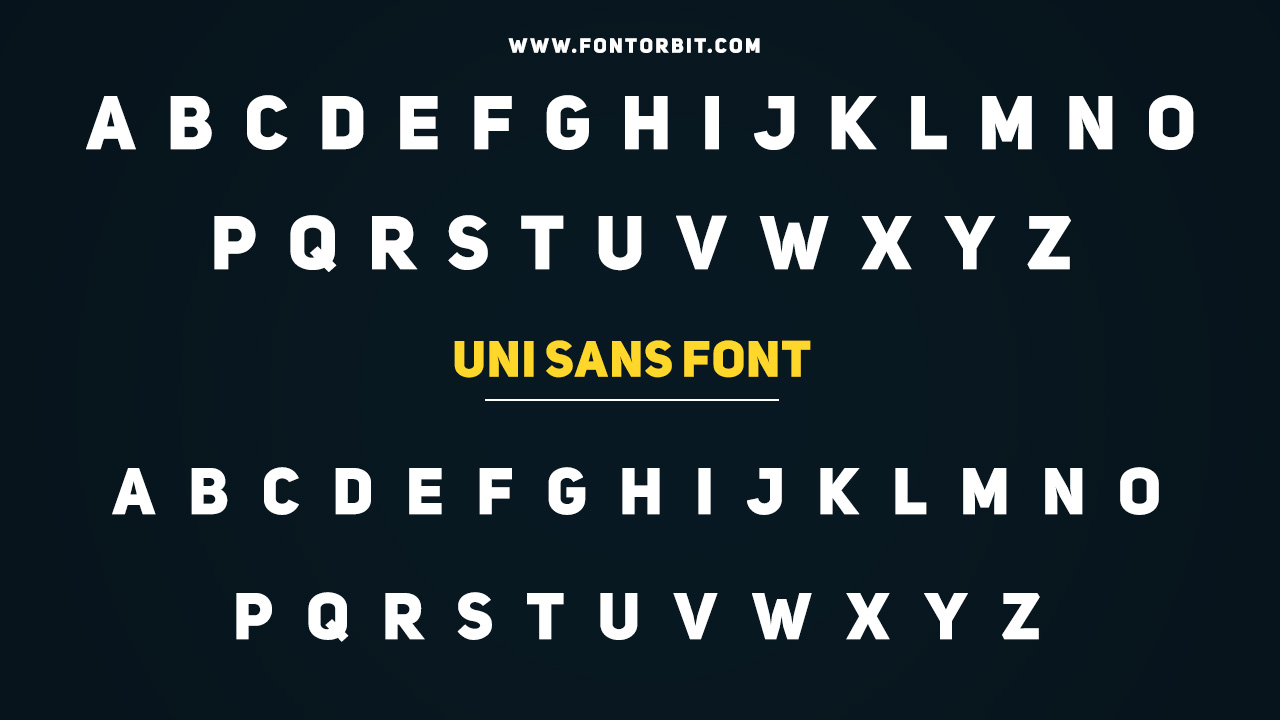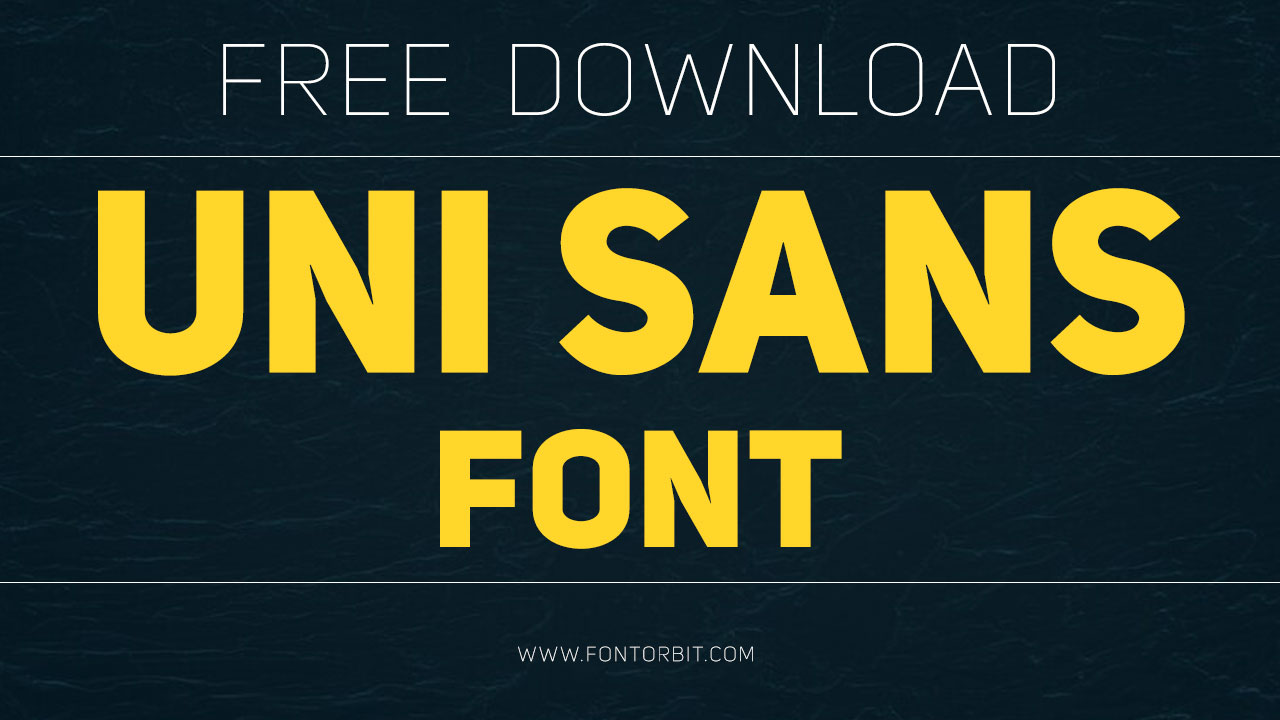
Uni Sans is a modern sans-serif typeface designed by Svetoslav Simov, Vasil Stanev, and Plamen Motev. This geometric font is published by Fontfabric in 2009 and is characterized by its bold structure and minimalistic aesthetic, making it highly versatile for digital and print media. Its distinctively sharp corners and clean letterforms make it look professional and strong.
The Uni Sans family is known for its functionality and flexibility, which is suitable for various design needs. The family includes different weights and styles, all maintaining the geometric consistency that defines the typeface.
Uni Sans is particularly effective for applications requiring a clean, bold, and professional typeface. Its design caters to various modern and minimalistic projects, offering a strong and easily readable text for multiple platforms.
- Web and mobile interfaces
- Editorial design (magazines, newspapers)
- Corporate materials
- Advertising
- promotions
Uni Sans is a bold, versatile font that stands out in various applications. Its geometric form offers strength and clarity. It’s an excellent choice for branding, advertising, and corporate communications. With multiple weights and styles available, Uni Sans can adapt to any design requirement, from logos to editorial layouts.
2.What Are The Best Uses For Uni Sans?
It’s best for branding, headlines, posters, and web design.
3.Is Uni Sans Suitable For Body Text?
It’s more suited for headlines, but lighter weights can be used for body text.
4.Does Uni Sans Support Multiple Languages?
Yes, it has extensive language support.
5.Are There Italic Versions Of Uni Sans?
Yes, italic styles are available for all weights.